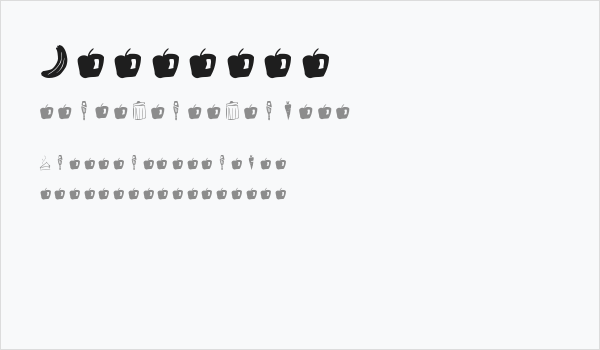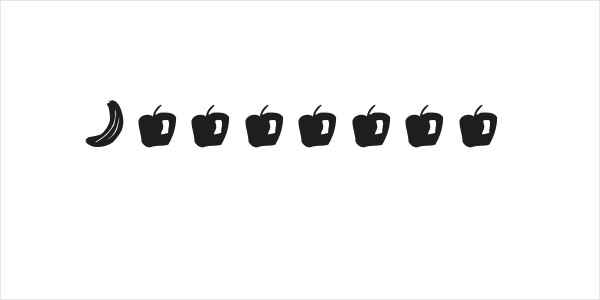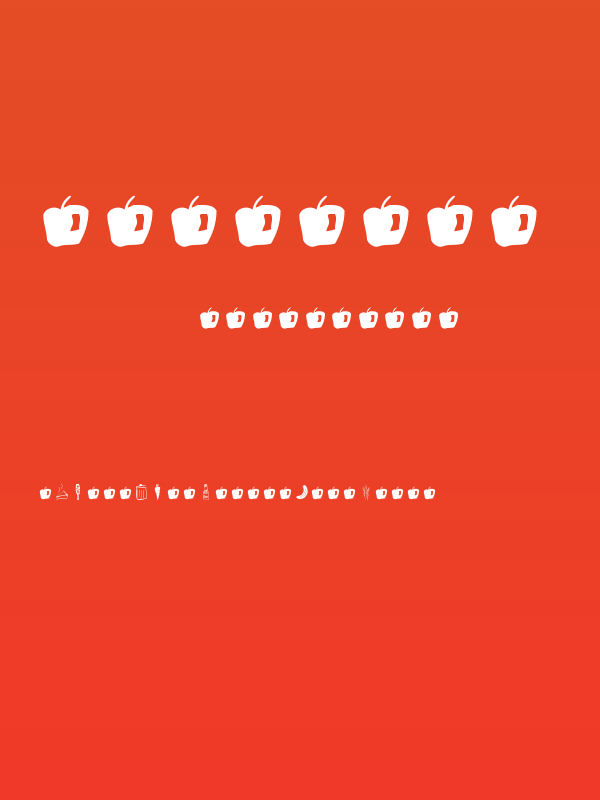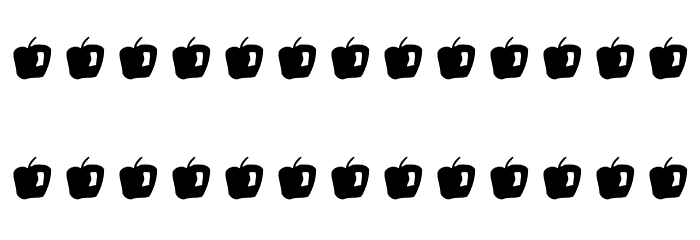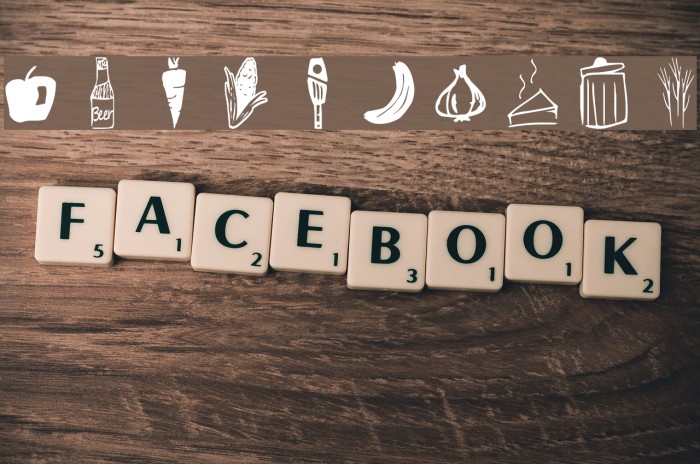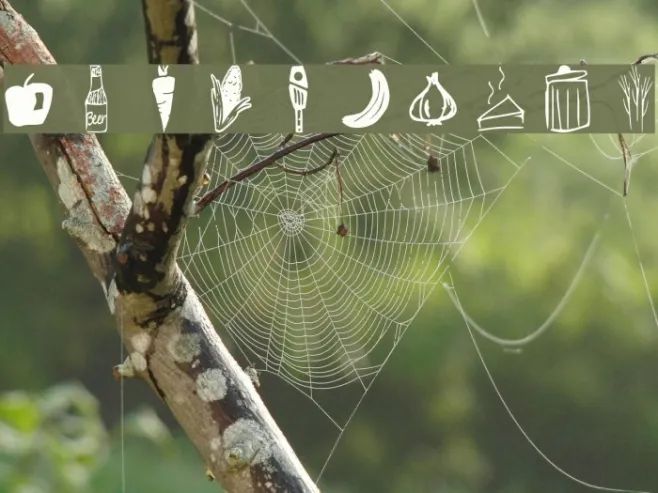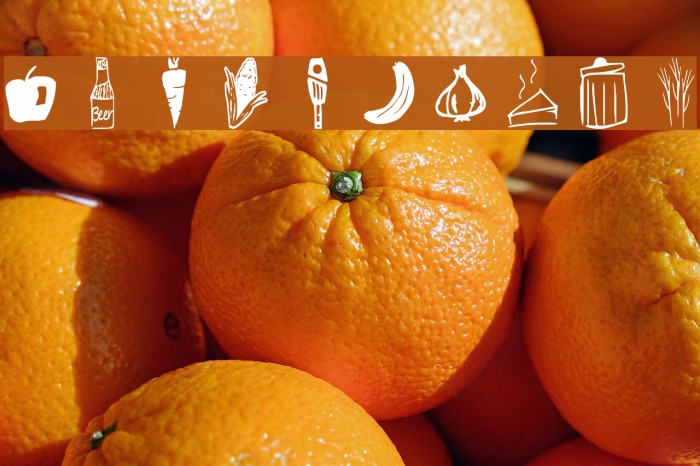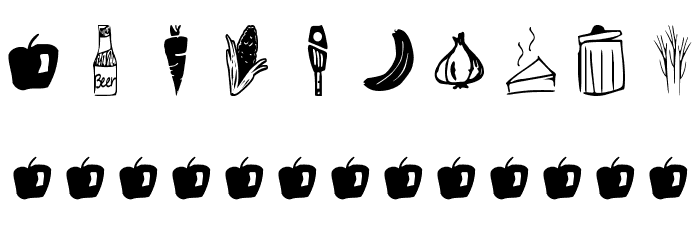
font3836 Font
font3836 Description
A playful dingbat font featuring a consistent apple icon for most characters, with select symbols and lowercase letters replaced by hand-drawn food and kitchen-related illustrations such as a beer bottle, carrot, corn, torch, banana, onion, pie, trash can, and twigs.
| Overall Style | Playful, Decorative |
| Use Case | Icons, Themed graphics, Decorative headings |
| Proposed Projects | Recipe cards, food festival posters, educational materials for children, playful branding, or themed event invitations. |